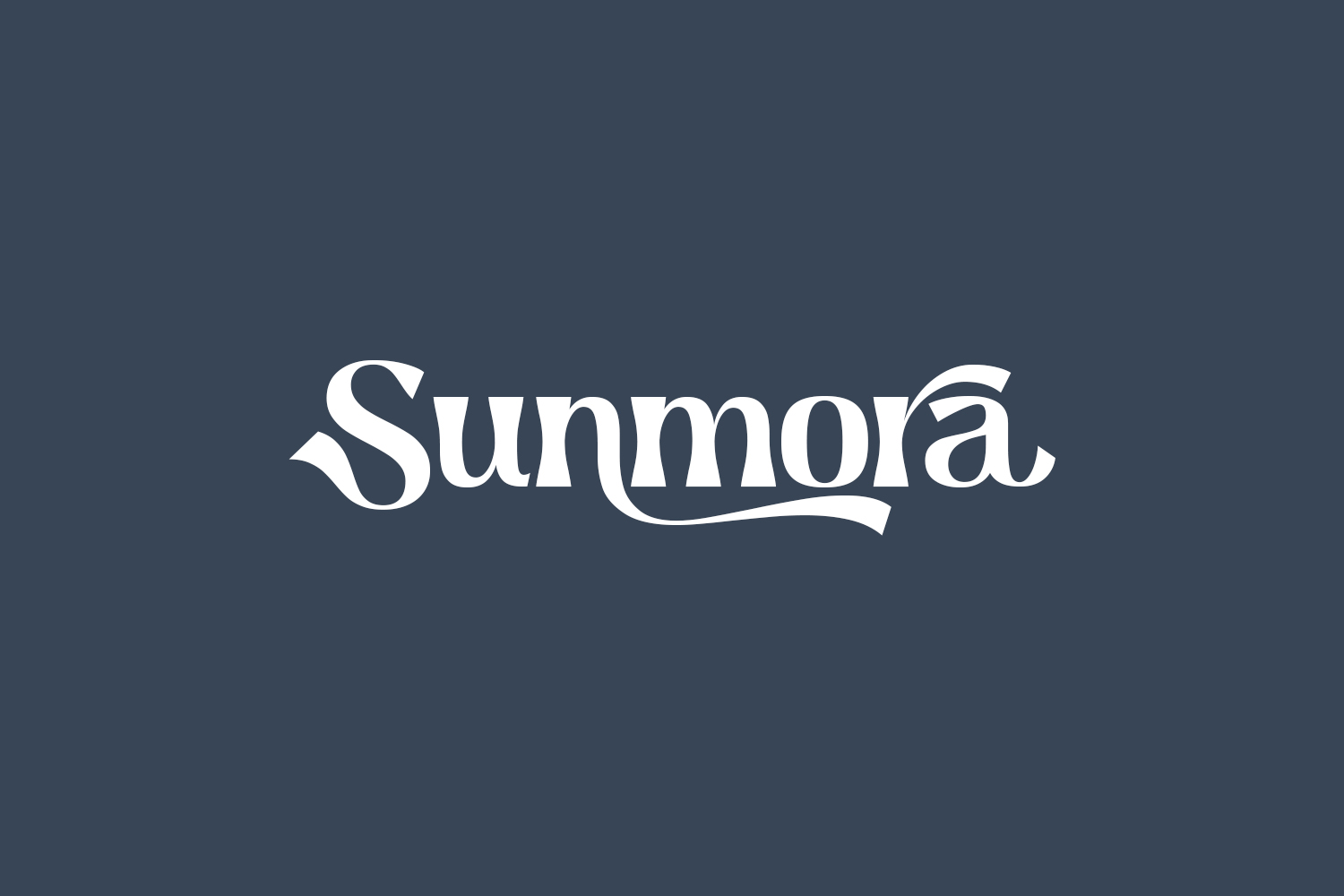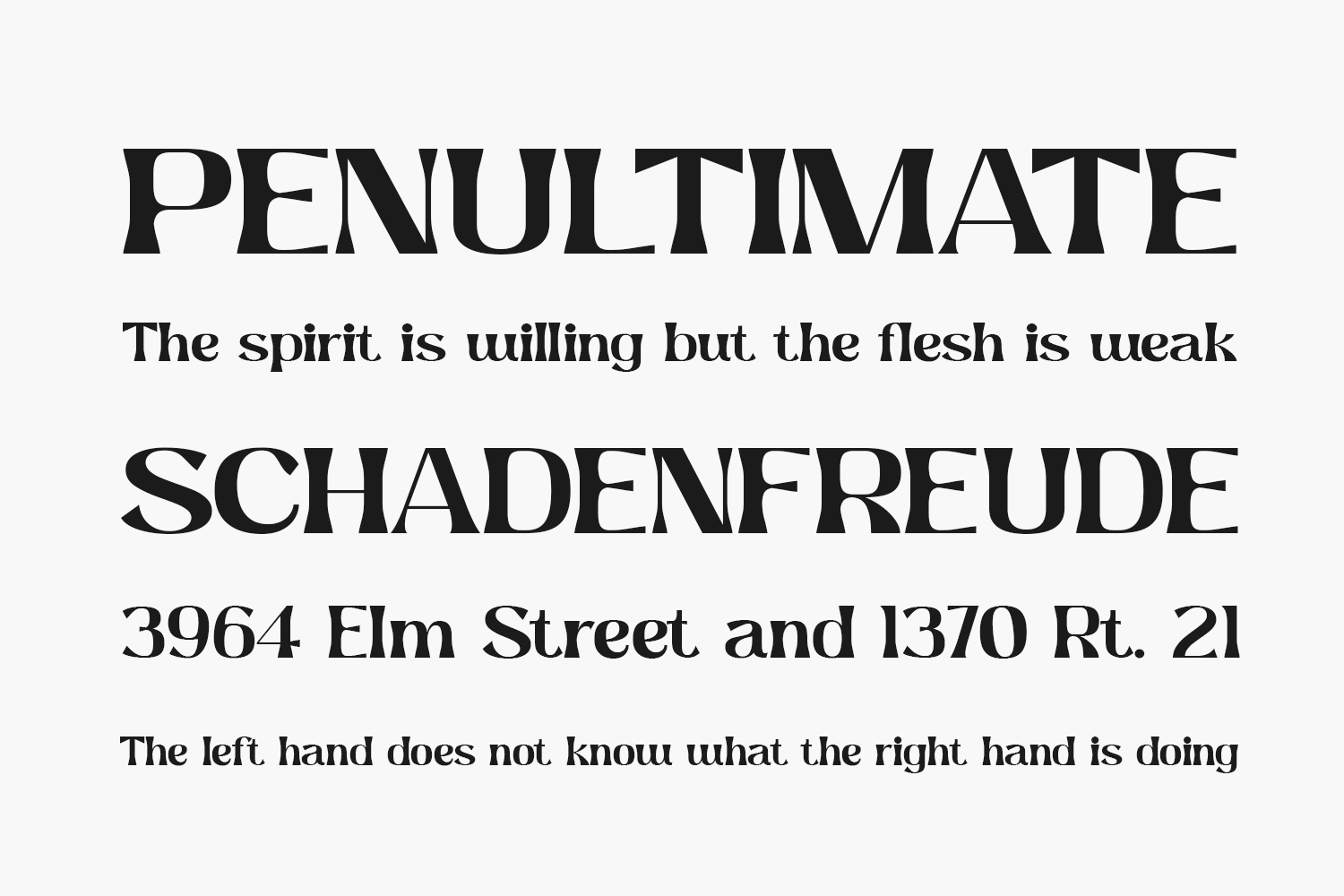
Sunmora Free Font is a cool, trendy, and thick lettered serif font. It is defined by smooth curves and is perfect for fashion branding or editorial designs. Add it confidently to your projects, and you will love the results. Sunmora Free Font was designed by Ardyana Types and is free for personal use only. Please purchase the full version for commercial use.